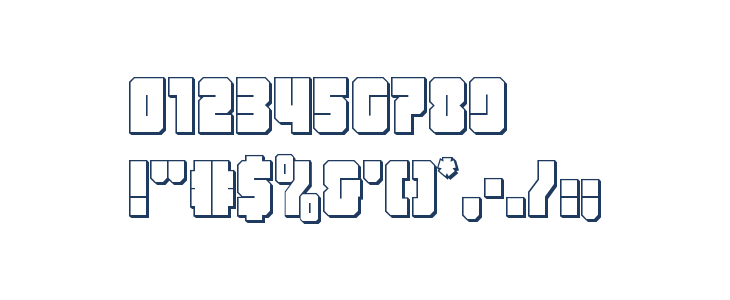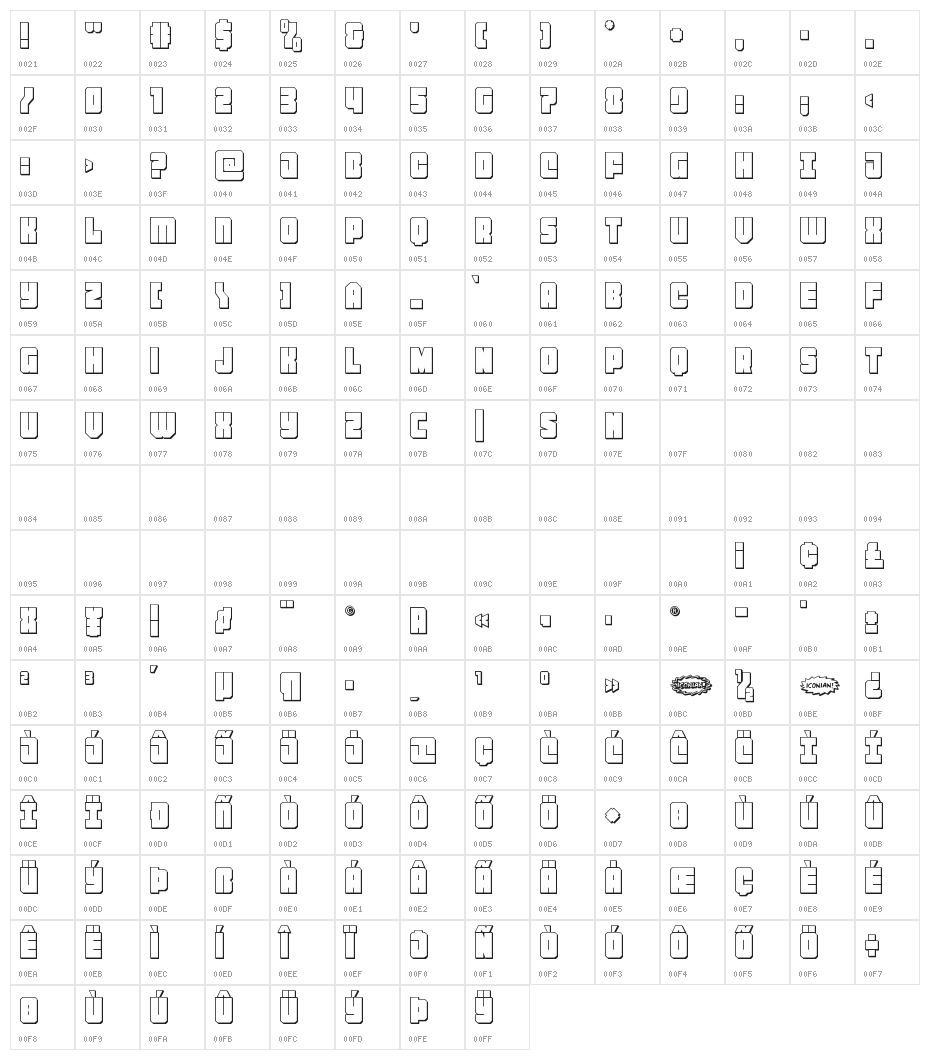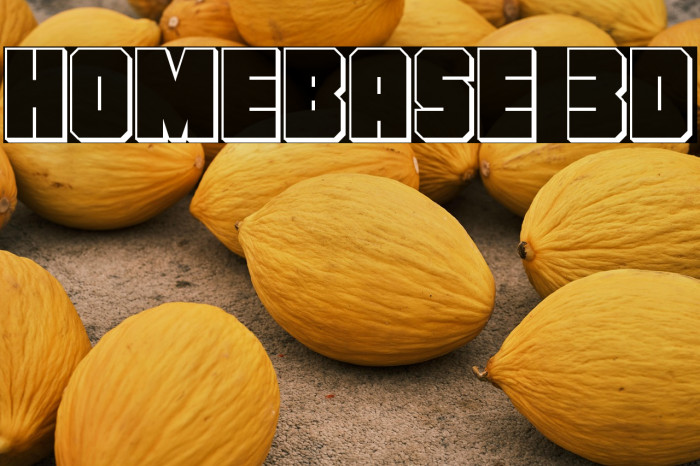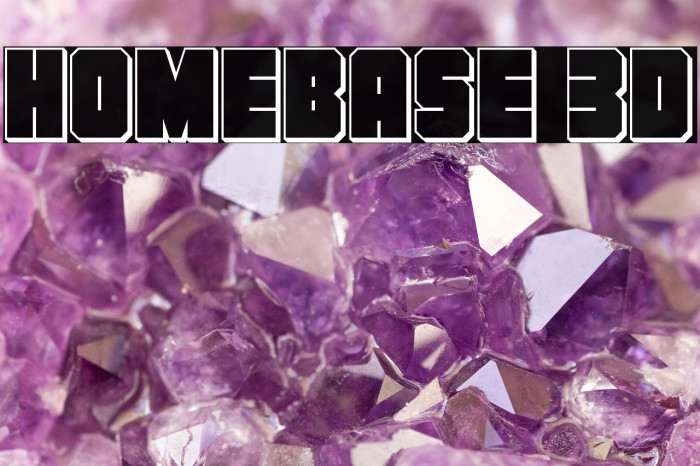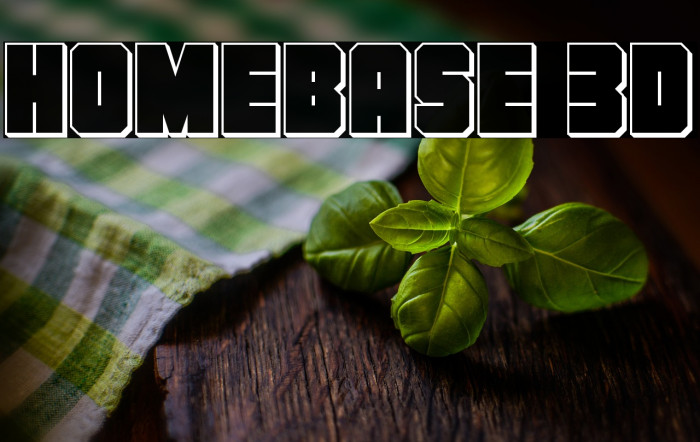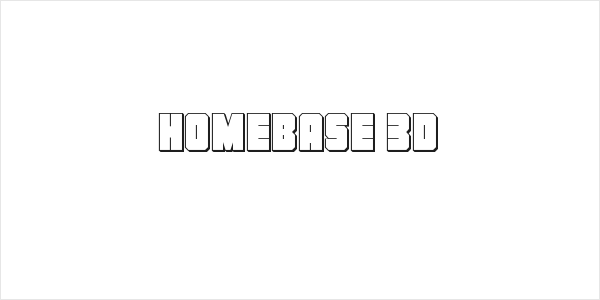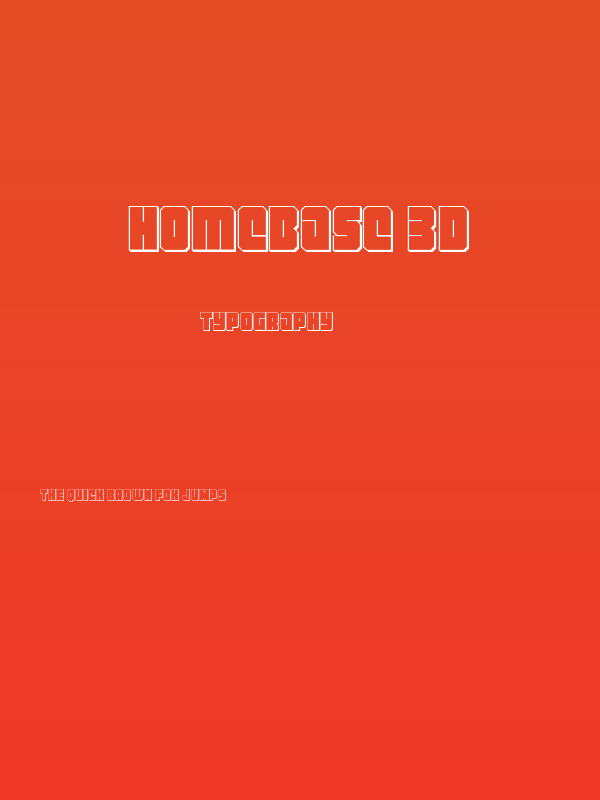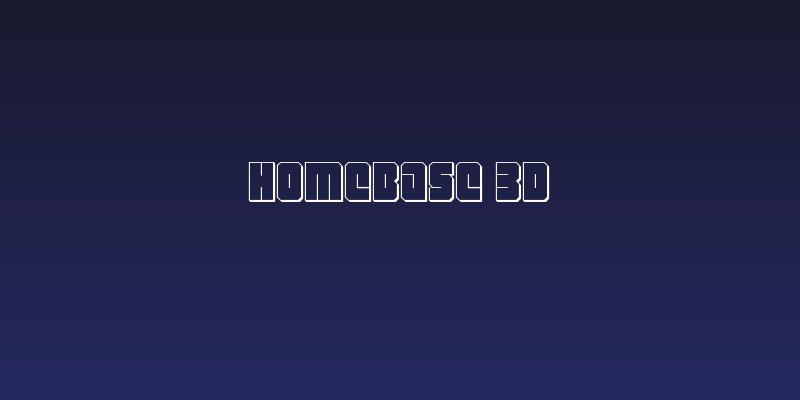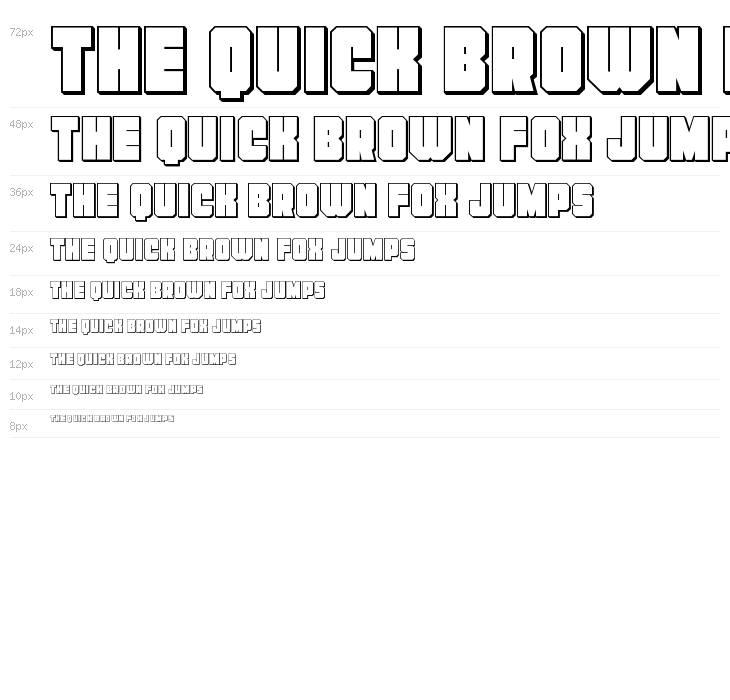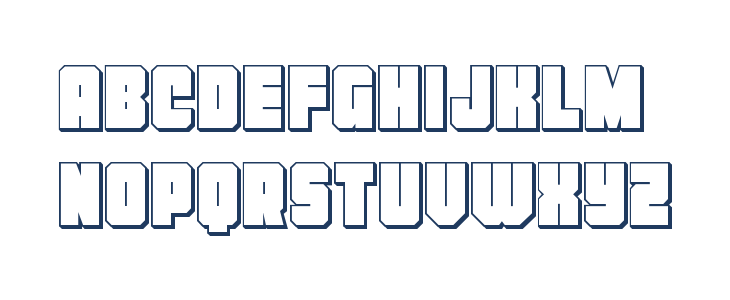
Homebase 3D Font
Homebase 3D Description
This font features a bold, three-dimensional block style with a strong geometric influence. Each character is outlined, creating a striking visual effect that emphasizes its 3D appearance. The letters are uniformly wide, with sharp angles and clean lines that give it a modern, industrial feel. The numbers and special characters maintain the same bold, outlined style, ensuring consistency across all glyphs. This font's design is both eye-catching and functional, making it suitable for a variety of creative applications.
| Proposed Projects | Ideal for video game titles, posters, logos, and any project requiring a bold, impactful typeface. |